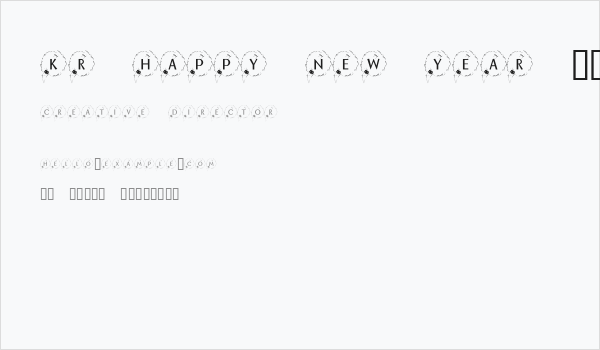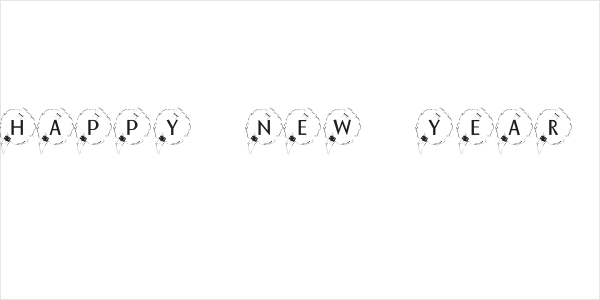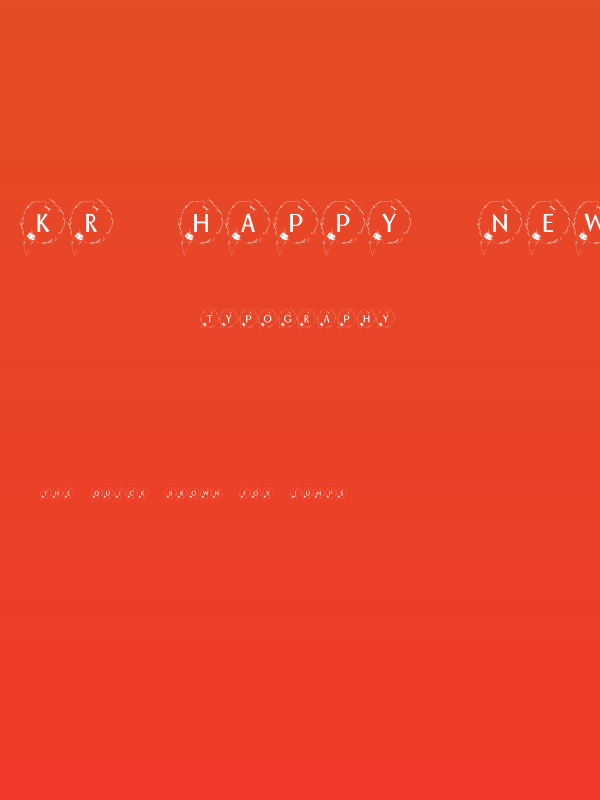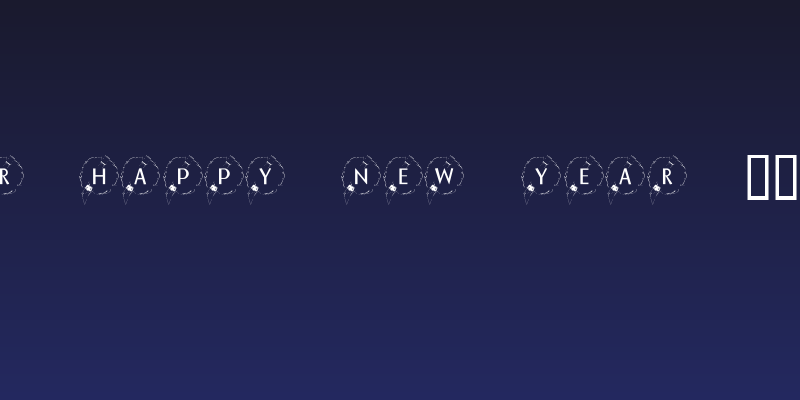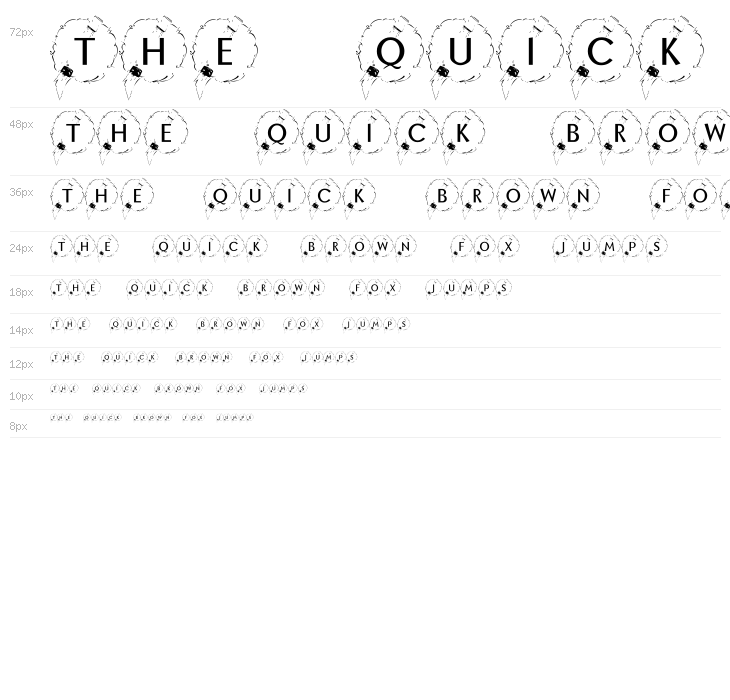
KR Happy New Year 2002 Font
KR Happy New Year 2002 Description
This font features a playful and decorative style, with each character encased in a circular, festive wreath-like design. The uppercase letters are bold and clear, making them stand out against the intricate background. The wreaths are adorned with small decorative elements, adding a whimsical touch to the overall appearance. This font is ideal for celebratory and holiday-themed projects, as it conveys a sense of joy and festivity. The unique design of each letter ensures that it captures attention, making it suitable for eye-catching headlines or special event invitations.
| Proposed Projects | Ideal for holiday cards, festive banners, event invitations, and decorative posters. |